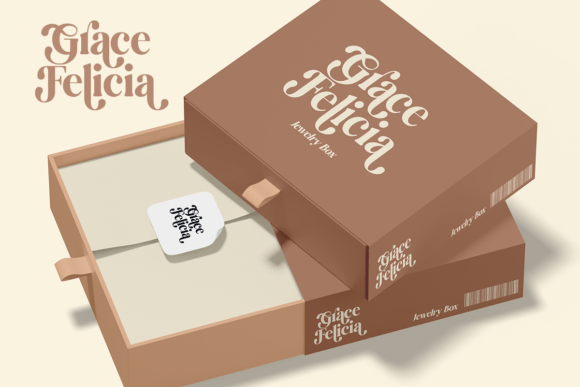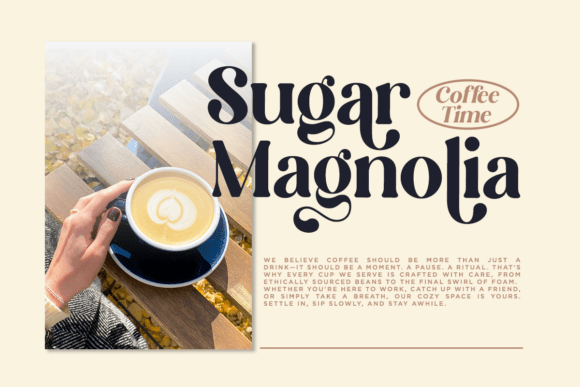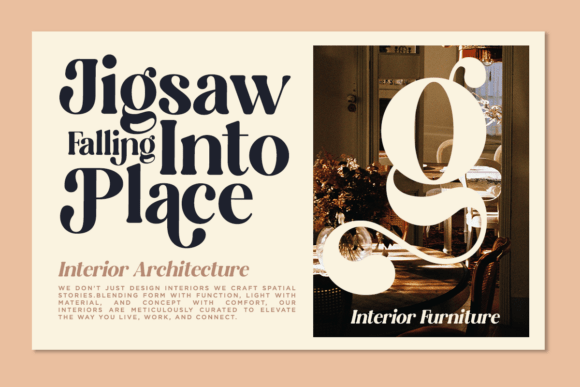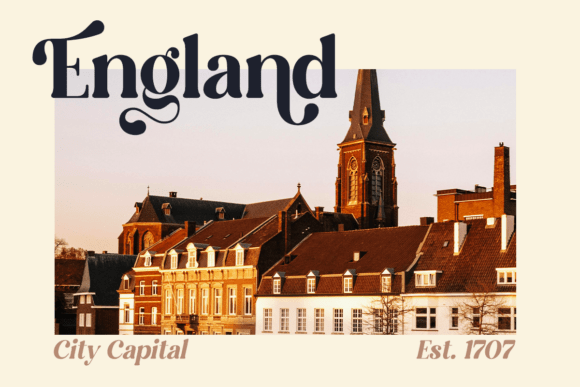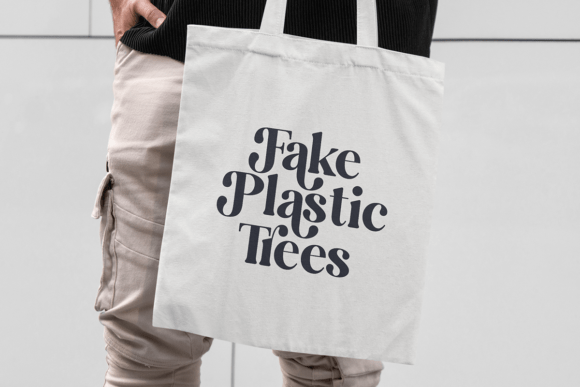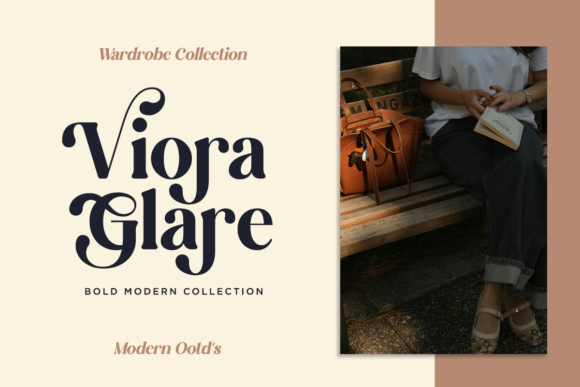
Introduction to Divale Magical Font Font
Fonts play a crucial role in design, and the Divale Magical Font font is a typeface that brings both character and versatility to any project. Whether you’re working on a branding project, a website, or a print design, the Divale Magical Font font offers a unique style that can elevate your work.
Bring charm and character to your designs with Divale Magical, a bold and whimsical display typeface crafted for standout storytelling.
With its soft curves, quirky terminals, and enchanting letterforms, Divale Magical blends retro aesthetics with a modern twistβperfect for making any project feel warm, fun, and unforgettable From coffee shop branding to book covers, packaging to social media, this font adds a dose of creativity and flair wherever itβs used.
Key Features of Divale Magical Font Font
Why Choose Divale Magical Font Font?
The Divale Magical Font font is more than just a typeface β it’s a design tool that helps you communicate your message with style and clarity. Its unique character set and versatile design make it suitable for a wide range of applications, from elegant invitations to bold headlines.
With its carefully crafted letterforms and balanced proportions, the Divale Magical Font font ensures readability and visual appeal across all mediums.
What makes Divale Magical Font font special?
The Divale Magical Font font stands out with its unique design, exceptional readability, and versatility across various design applications.